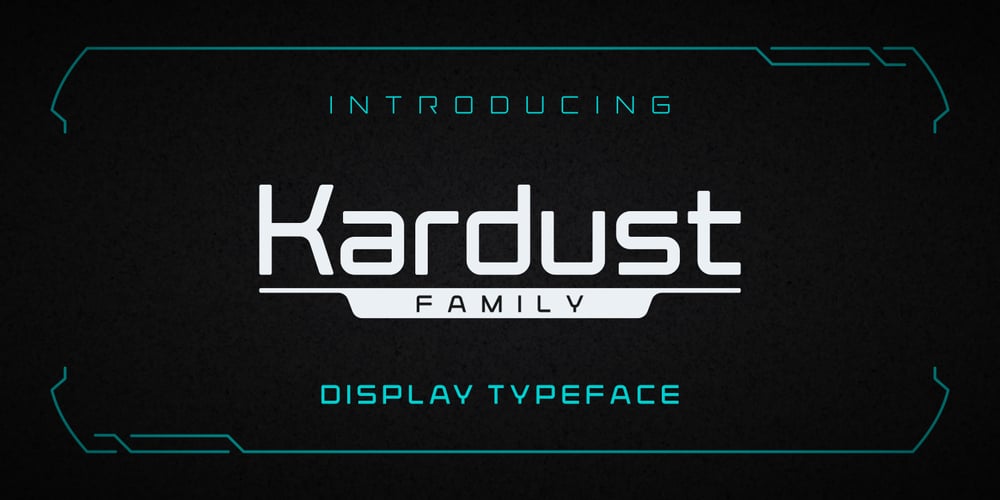
Kardust
Kardust font
Kardust Font Family was designed by Anthonie Van Hayu and published by ARToni. Kardust contains 18 styles and family package options. Kardust is geometric basic typeface with smooth touch of rounded corner. It is based on single line brings consistent width and character on each style. Each style is crafted separately without auto transformation to maintain the consistency as well as the characteristic itself.